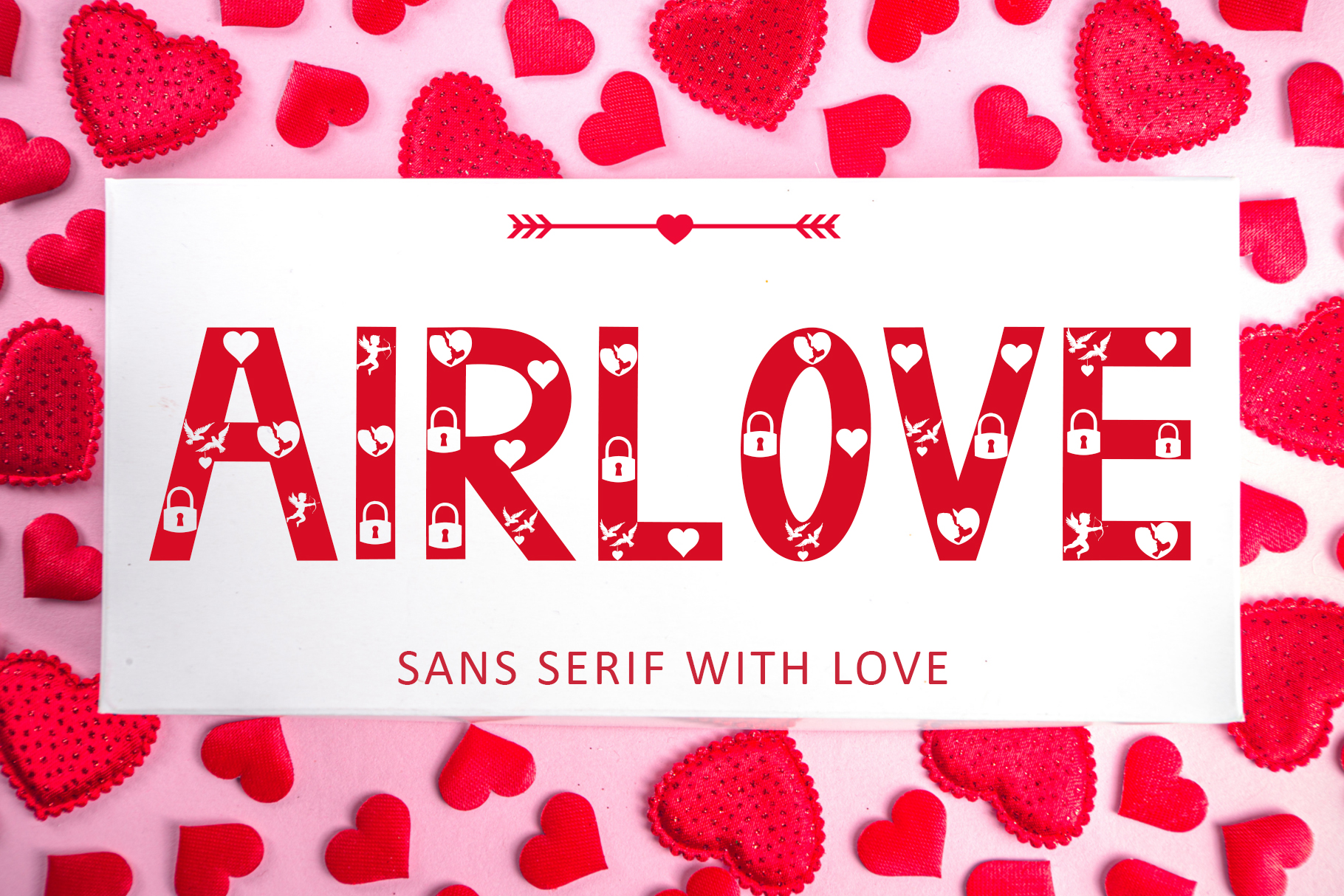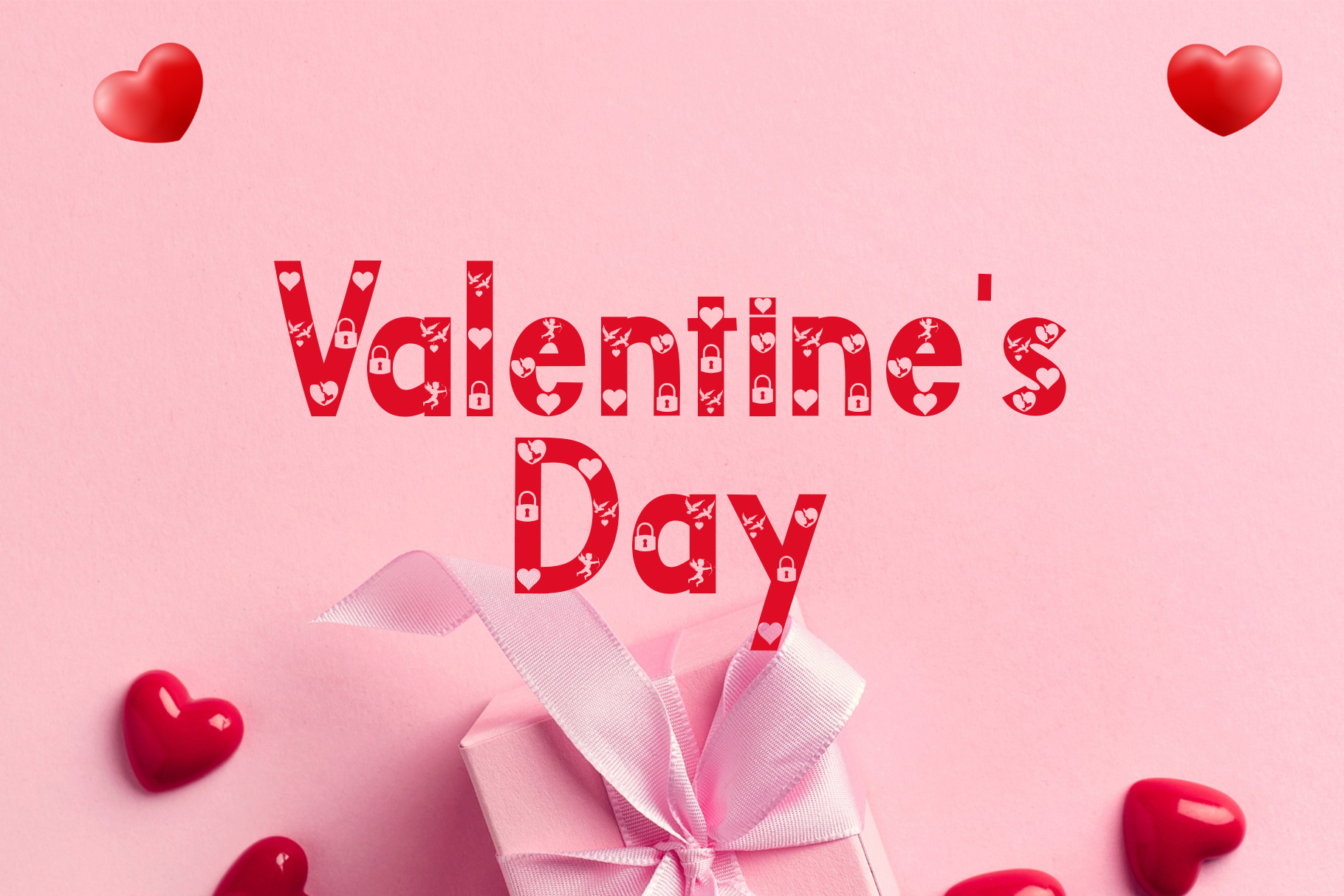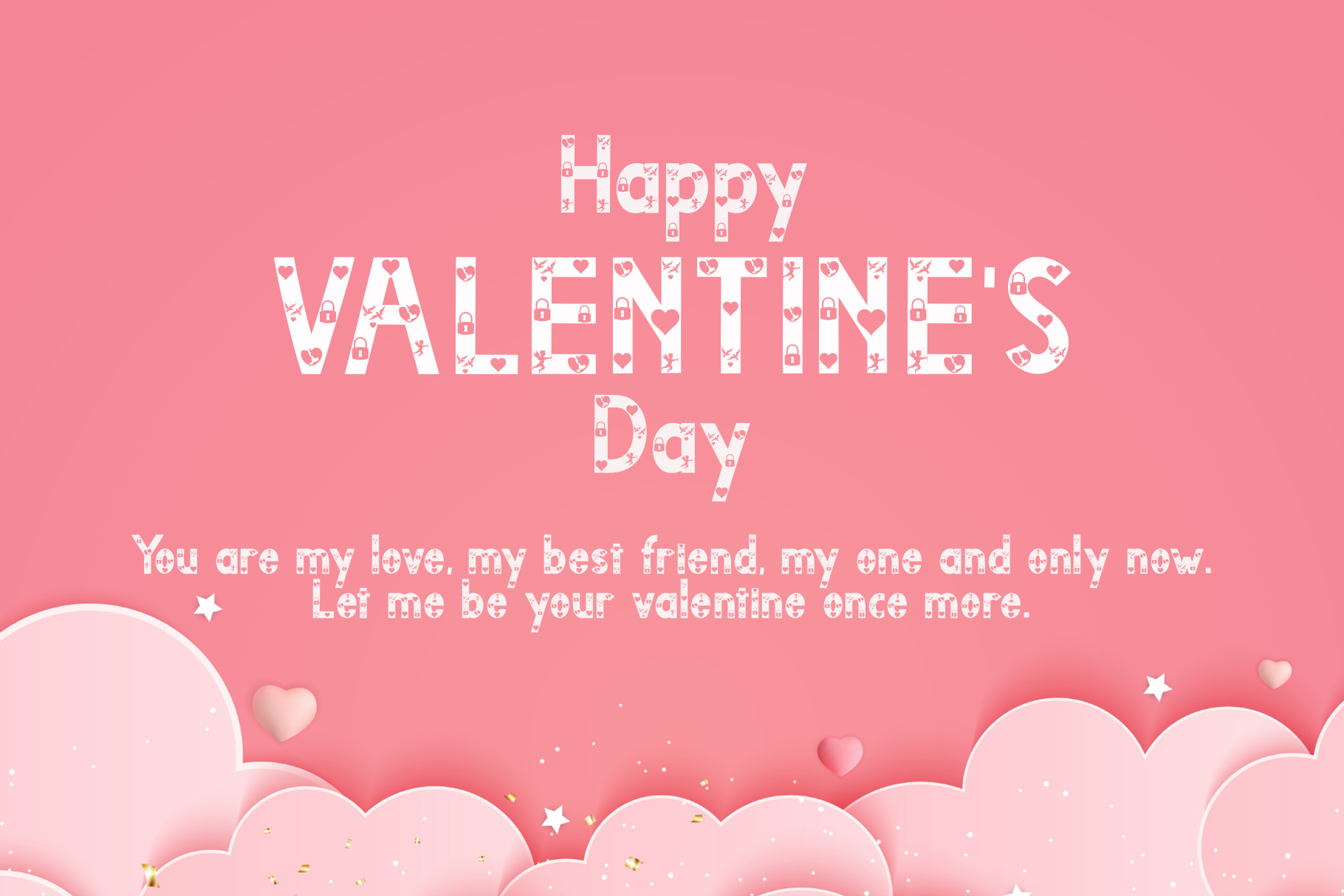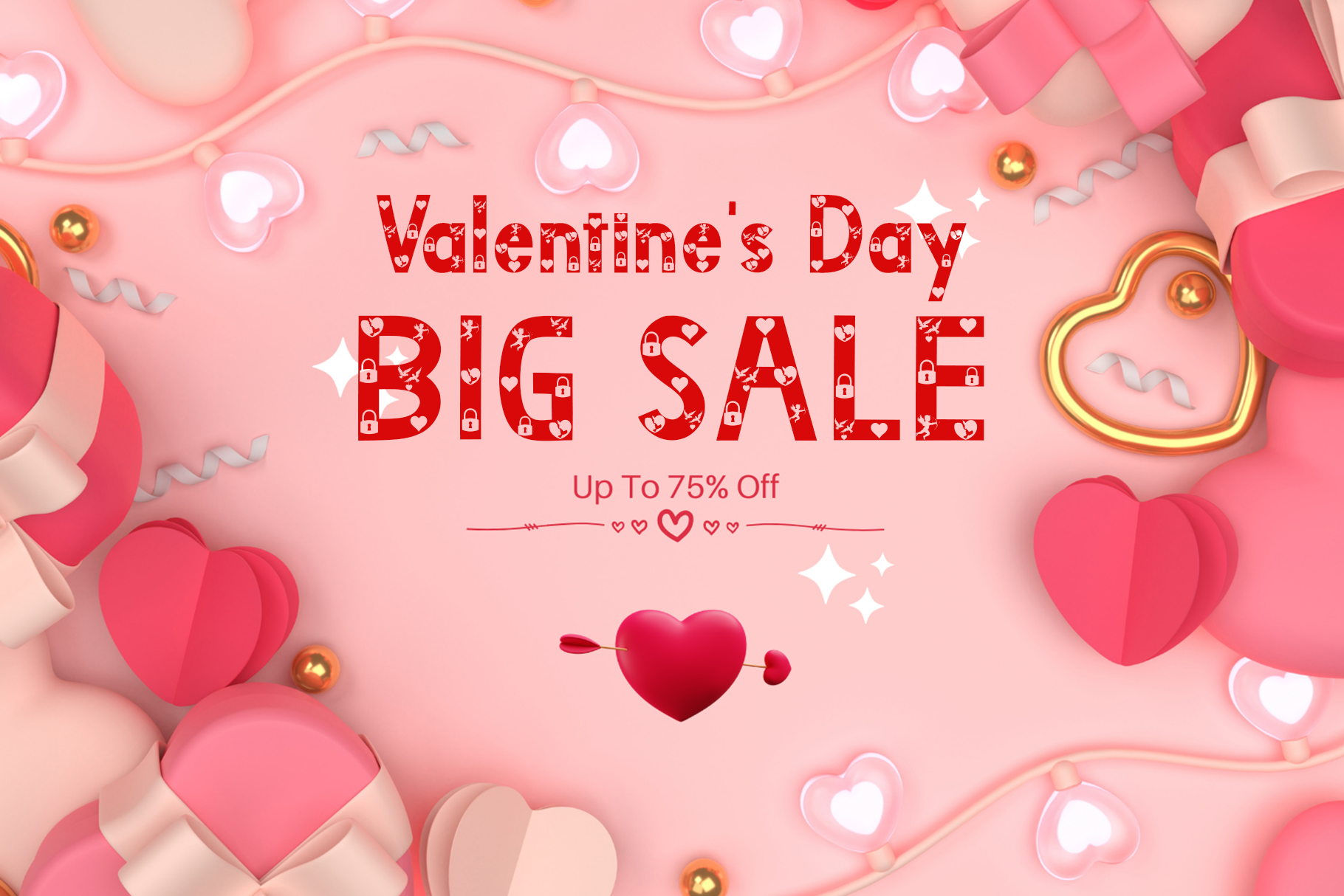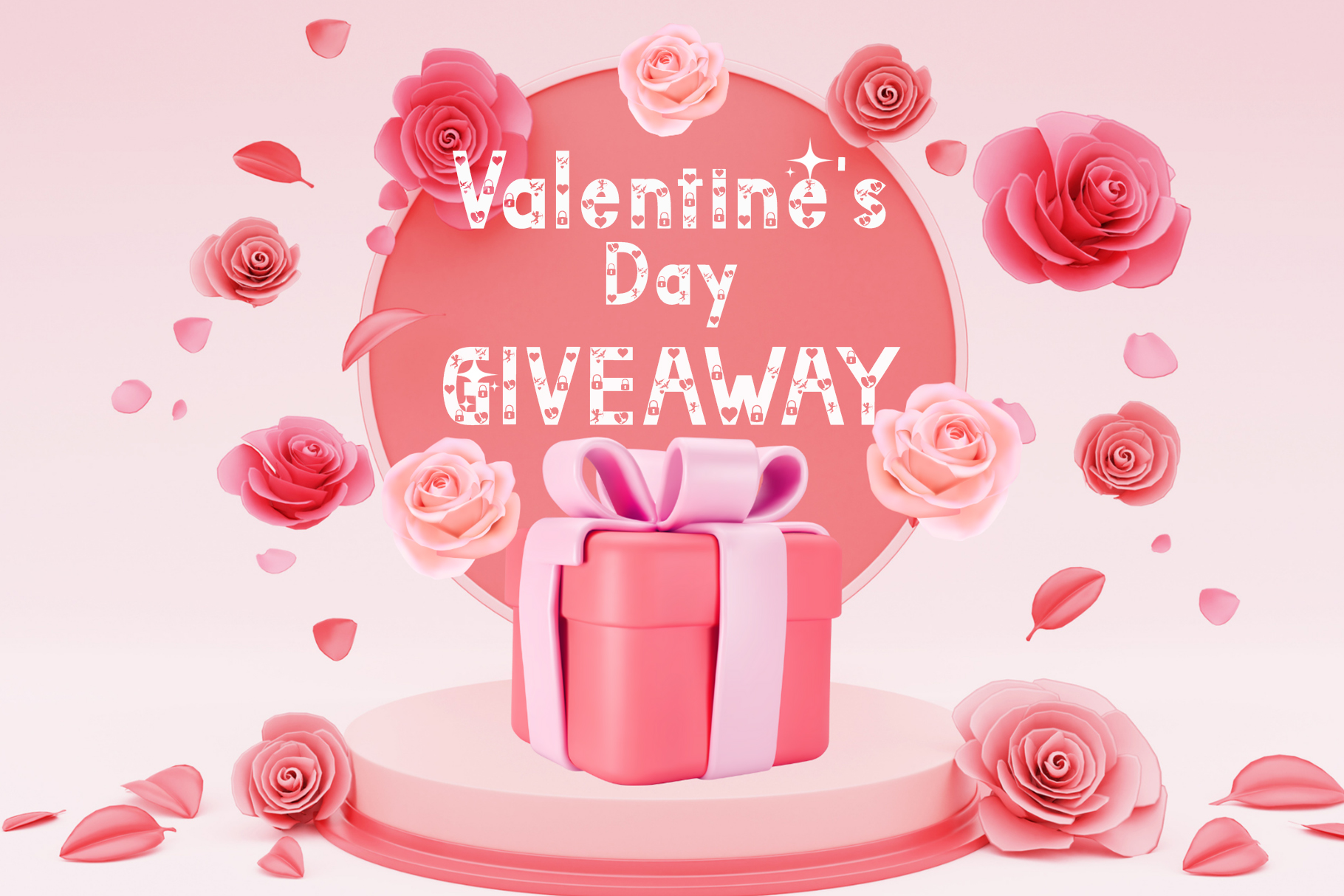
Airlove Font
Airlove Display Font
This is a sans serif font combined with a heart, a padlock, a pair of birds and a couple of lovers. This font is very elegant, it can be used for weddings, photography, valentines, invitations, product promotions, and others. This font is equipped with uppercase, lowercase, numerals, punctuations, and multilingual support.